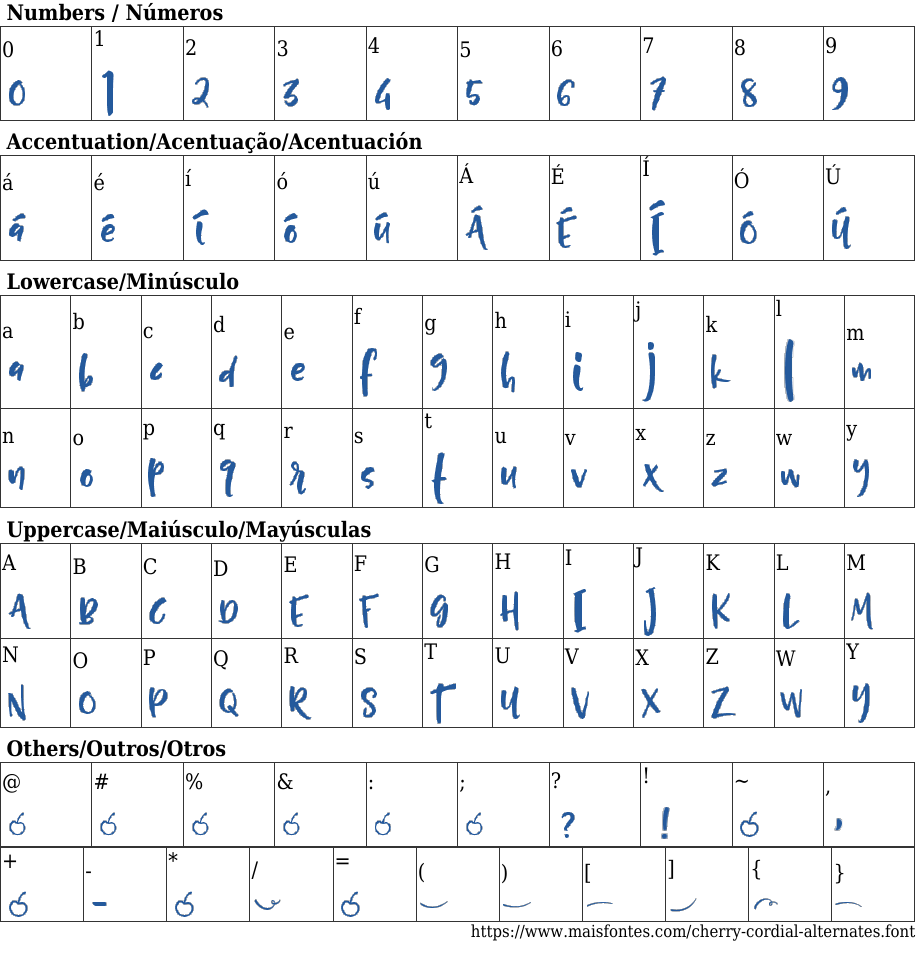
Cherry Cordial Font - This is cherry cordial, a new connecting script font with a full second alphabet of print characters, so you can mix and match for a. Ideal for greeting cards, playful. Download cherry cordial alternates font. Download the latest cherry cordial font for windows, mac, & linux exclusively at font canyon. Cherry cordial alternates by ?2016 missy meyer.
Cherry Cordial Alternates By ?2016 Missy Meyer.